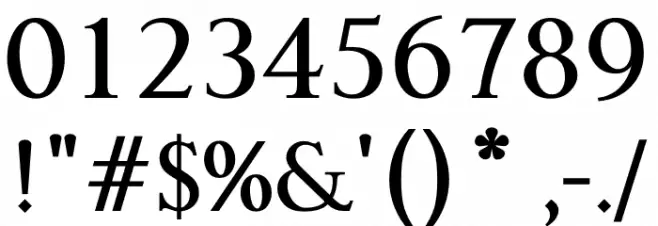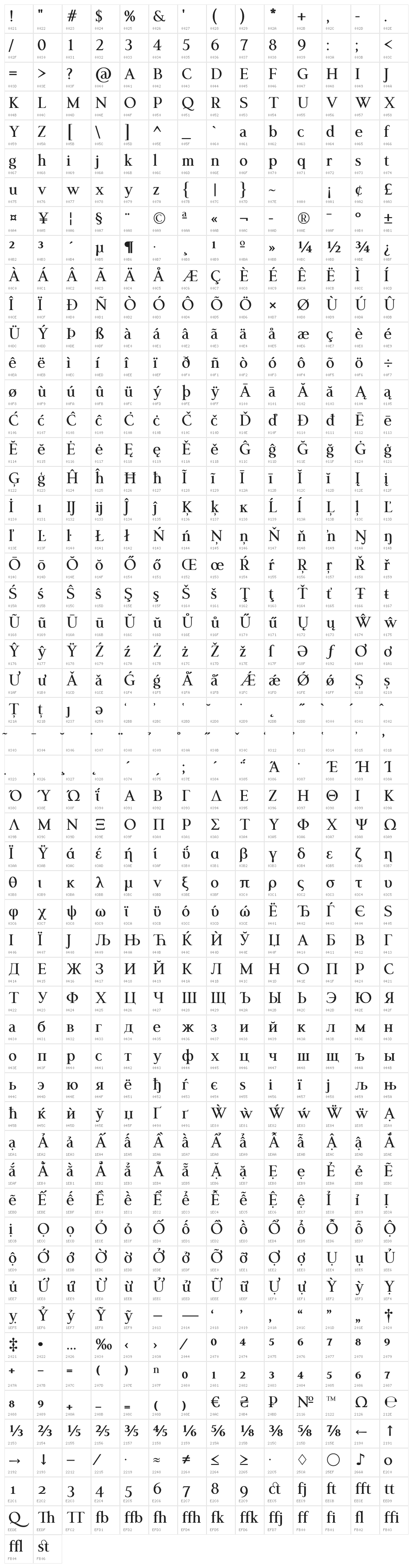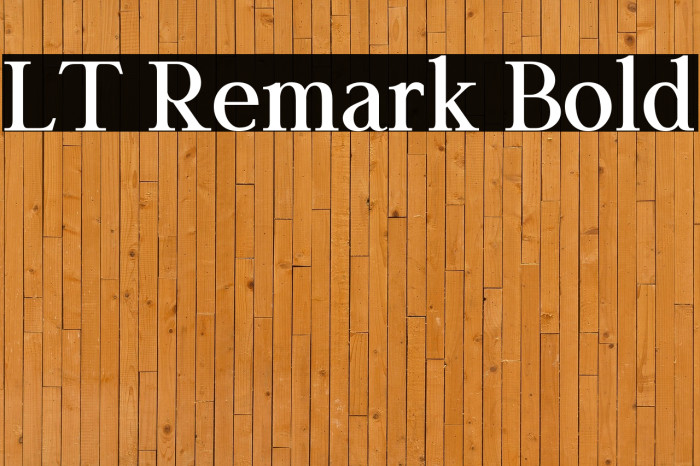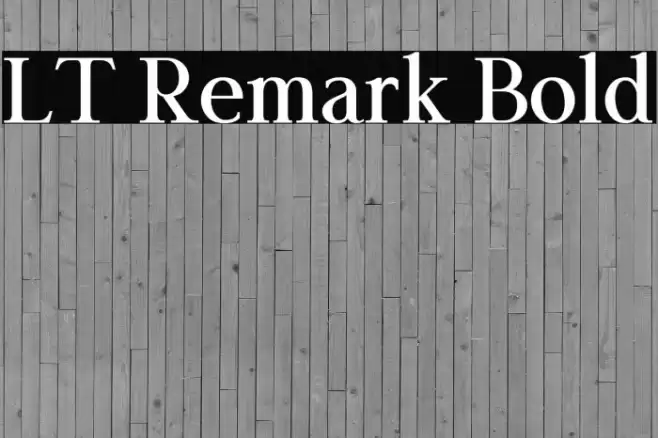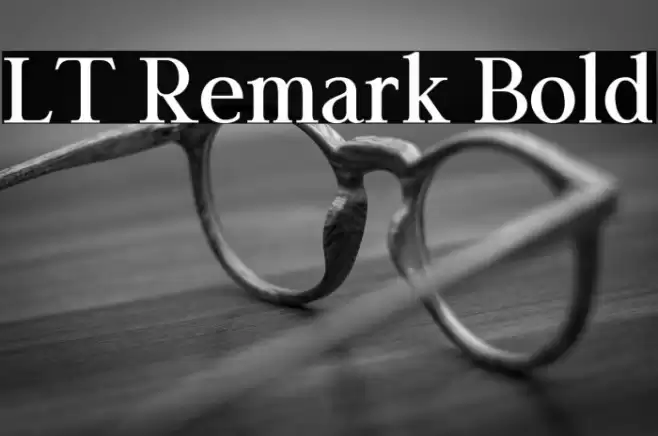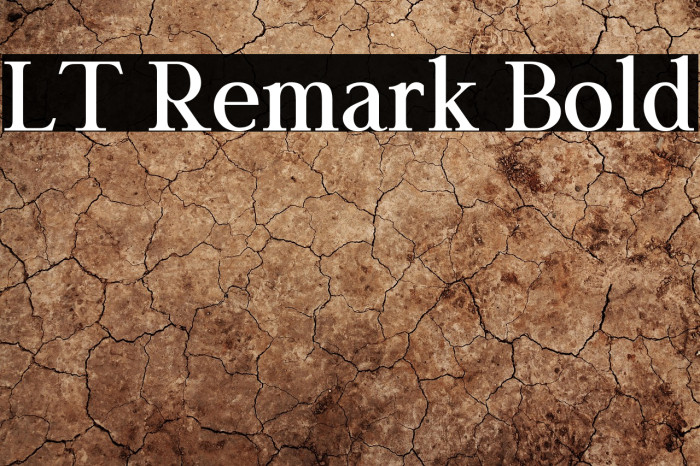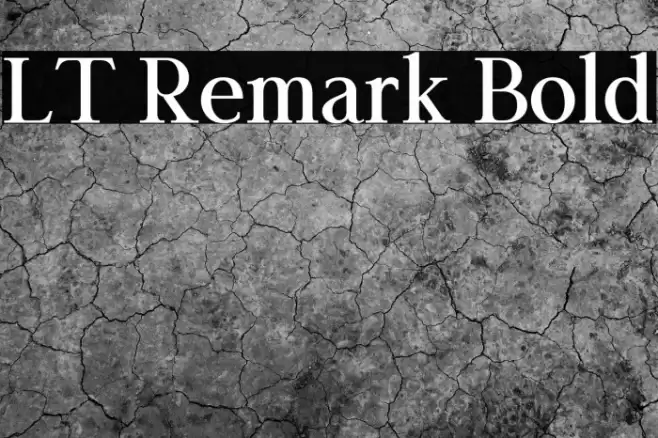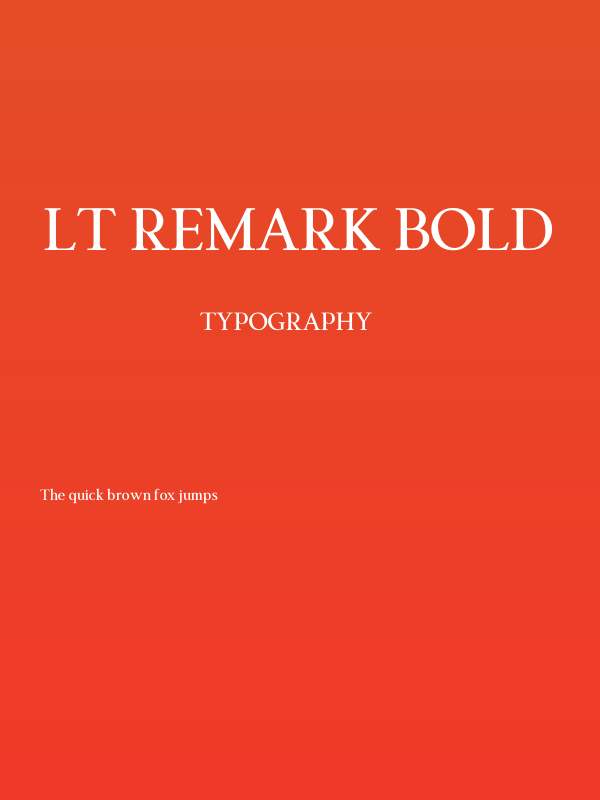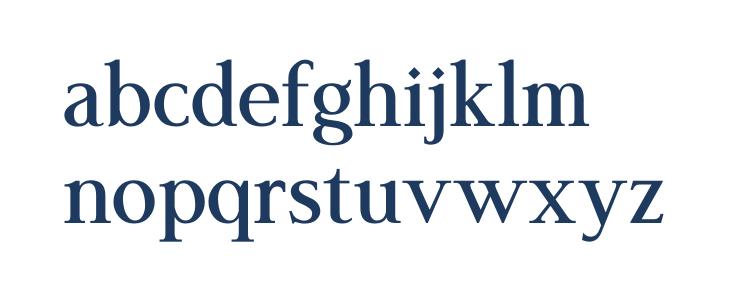
LT Remark Bold Font
LT Remark Bold Description
This typeface features a classic serif design with strong, bold strokes that convey a sense of authority and tradition. The uppercase letters are well-proportioned with sharp serifs, while the lowercase letters maintain a consistent style with slightly rounded edges, adding a touch of elegance. The numerals are clear and distinct, making them easy to read. Special characters are designed with the same attention to detail, ensuring uniformity across the typeface. The overall appearance is both timeless and versatile, suitable for a variety of applications.
| Proposed Projects | Ideal for book covers, editorial design, branding, and formal invitations. |